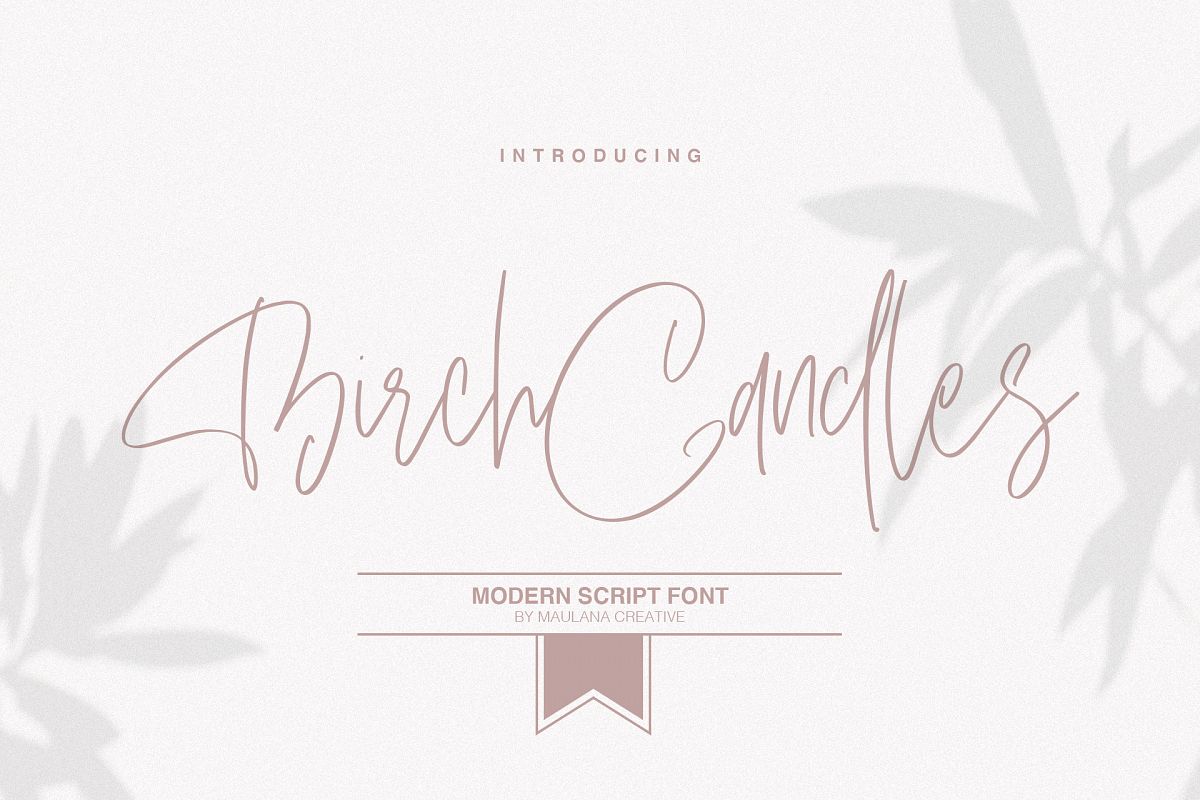
Give your designs an authentic handcrafted feel. "Birch Candles" is perfectly suited to signature, stationery, logo, typography quotes, magazine or book cover, website header, clothing, branding, packaging design and more. Included Ligatures.